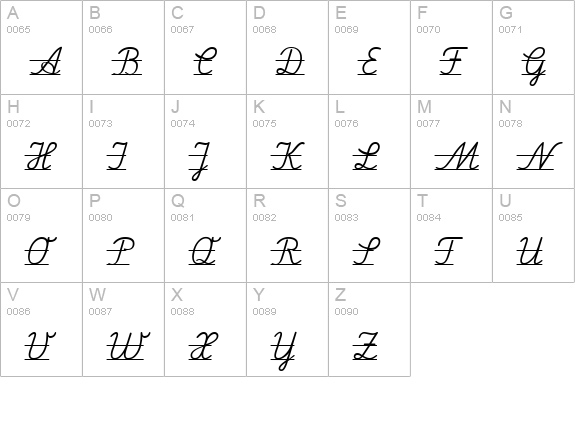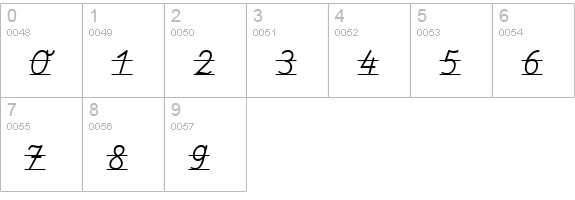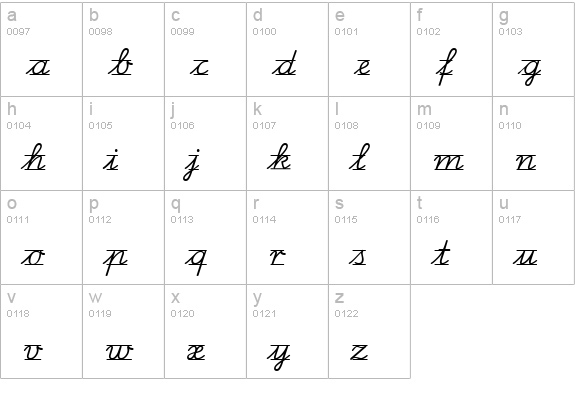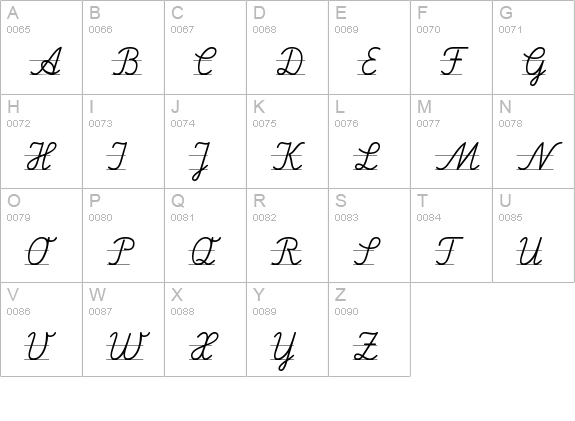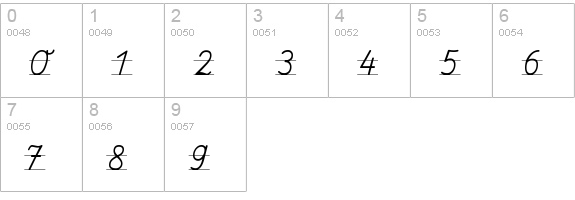
LA El 2 Font Details
Introducing LA El 2, a captivating and versatile font that will bring a touch of elegance to your designs. This font is perfect for those seeking a balance between sophistication and modernity. With its clean lines and graceful curves, LA El 2 exudes a sense of refinement that will elevate any project. What makes LA El 2 even more enticing is that it is completely free. Yes, you read that right! This font is freely available to download at FontsMarket.com, making it accessible to all designers and creatives. Whether you're a professional graphic designer or a hobbyist looking to add a touch of flair to your personal projects, LA El 2 is the perfect choice. With its wide range of weights and styles, LA El 2 offers endless possibilities for typography. From bold and impactful headlines to delicate and graceful body text, this font has you covered. Its versatility allows it to be used across various design mediums, including print, web, and branding. The attention to detail in LA El 2 is truly remarkable. Each character is meticulously crafted, ensuring legibility and visual harmony. The thoughtfully designed ligatures and alternates add an extra layer of creativity to your designs, allowing you to truly make them your own. Whether you're working on a logo, packaging, invitations, or any other design project, LA El 2 will undoubtedly make a lasting impression. Its timeless elegance and modern appeal will captivate your audience and elevate your work to new heights. So don't miss out on this incredible opportunity to enhance your designs with LA El 2. Head over to FontsMarket.com and download this exquisite font for free. Join the countless designers who have already discovered the beauty and versatility of LA El 2. Your projects deserve nothing less than the best, and LA El 2 is here to deliver.